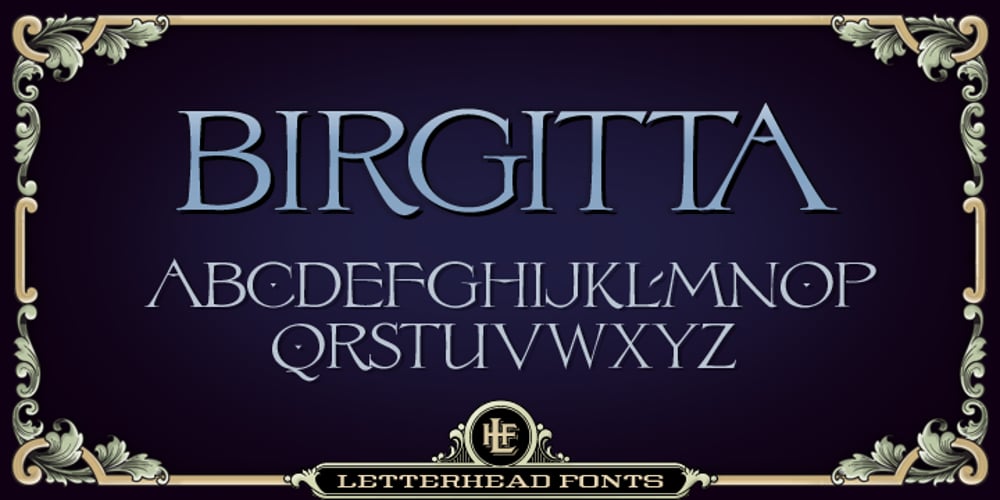
LHF Birgitta Font Family was designed by Chuck Davis and published by Letterhead Fonts. LHF Birgitta contains 1 styles and family package options. This beautiful roman style typeface is inspired from an E.C. Matthews book. Although the book we have is dated 1967, the style appears to have been created in the 1920s or 30s.